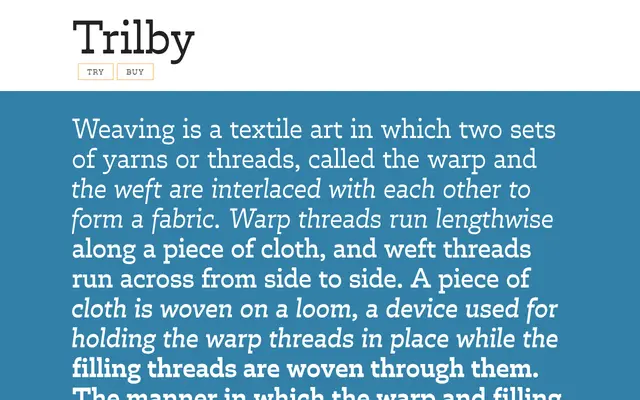
Trilby
A reversed-stress slab drawn from the French Clarendon tradition, refined by David Jonathan Ross into a face genuinely usable at text sizes.
Where most reversed-stress faces are confined to headline work, Trilby's restrained take on the French Clarendon's backward weight distribution allows it to set full paragraphs with legibility intact. DJR stripped away the genre's usual showiness and applied the inverted stress to an open, contemporary letter structure, producing something that reads as quaint and characterful rather than theatrical. Four weights from Regular to Black, each with an italic, are complemented by variable font versions spanning the full weight range.
Trilby draws directly from the nineteenth-century French Clarendon tradition, defined by its reversed stress where horizontal strokes and serifs are heavier than the vertical stems. DJR retains this structural inversion while applying it to a more open, contemporary letterform, placing it firmly in the slab serif genre.